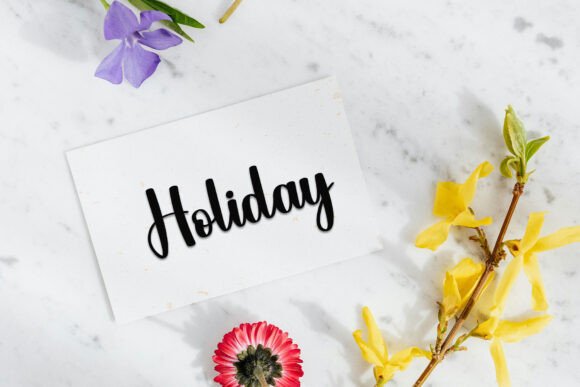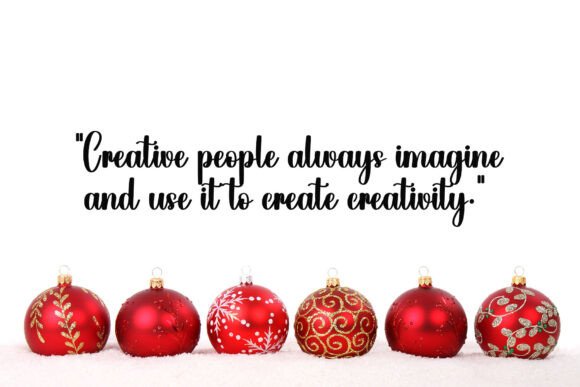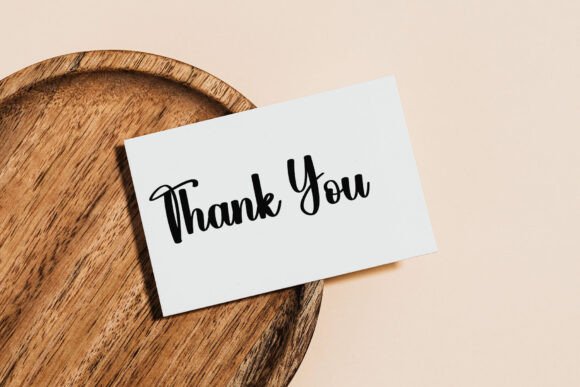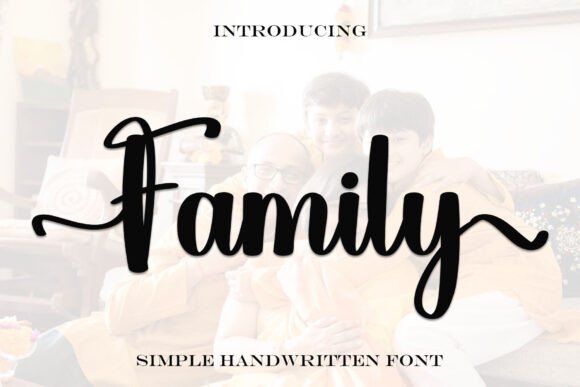
Introducing Family Font: Elevate Your Designs with Timeless Elegance
In the world of typography, fonts play a crucial role in conveying the tone and personality of a design. For designers and crafters seeking to add a touch of sophistication and class to their projects, Family Font is an exceptional choice. This trendy handwritten font boasts a contemporary atmosphere and impeccable form, drawing inspiration from timeless classic calligraphy.
The Essence of Family Font
Family Font is more than just a typeface; it’s a design statement. With its roots in traditional calligraphy, this font seamlessly blends classic elegance with modern flair. Its unique character set and flowing lines make it perfect for a wide range of design applications, from luxury branding and wedding stationery to fashion magazines and packaging.
Key Features of Family Font
• Contemporary yet Classic: Family Font strikes the perfect balance between modern trends and timeless elegance, making it versatile for various design projects.
• Handwritten with Precision: Each letterform is crafted with precision, offering a personal touch that sets it apart from more traditional typefaces.
• Elegant and Readable: The font’s clear readability and elegant appearance make it suitable for both headlines and body text, providing flexibility in design.
• Wide Range of Applications: From digital platforms to print materials, Family Font can elevate the aesthetic of any project, ensuring a cohesive and sophisticated look.
Why Choose Family Font?
For designers and crafters, selecting the right font can be a daunting task. Here are a few reasons why Family Font stands out:
• Unique Aesthetic: In a sea of generic fonts, Family Font offers a distinctive look that can help your designs stand out.
• Time-Saving: With its versatility and wide range of applications, Family Font can be used across multiple projects, saving you time and effort in searching for different fonts.
• Easy to Pair: Its classic and elegant nature makes it easy to pair with other fonts, providing you with endless creative possibilities.
Using Family Font in Your Designs
Family Font is a versatile and elegant typeface that can elevate any design project. Its unique blend of classic calligraphy and contemporary flair makes it a valuable addition to any designer’s toolkit. Whether you’re working on a luxury brand campaign, a wedding invitation, or a fashion editorial, Family Font is sure to add a touch of sophistication and class. Explore the possibilities of Family Font today and discover how it can transform your designs.
What inspired the creation of Family Font?
Family Font was inspired by timeless classic calligraphy, with a goal to bring elegance and class to modern design projects.
Is Family Font suitable for digital use?
Yes, Family Font is designed to be versatile and can be used in both print and digital mediums.